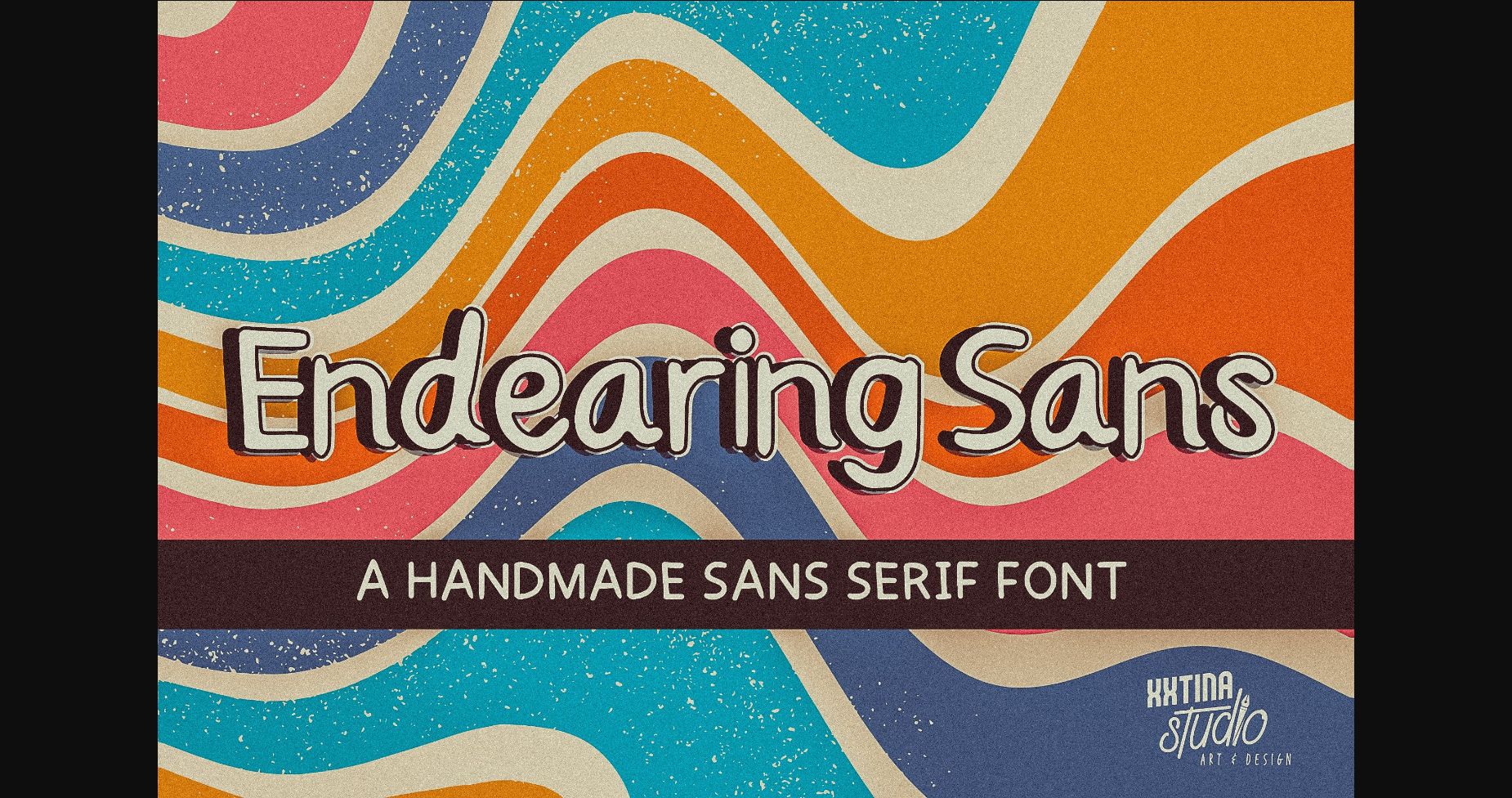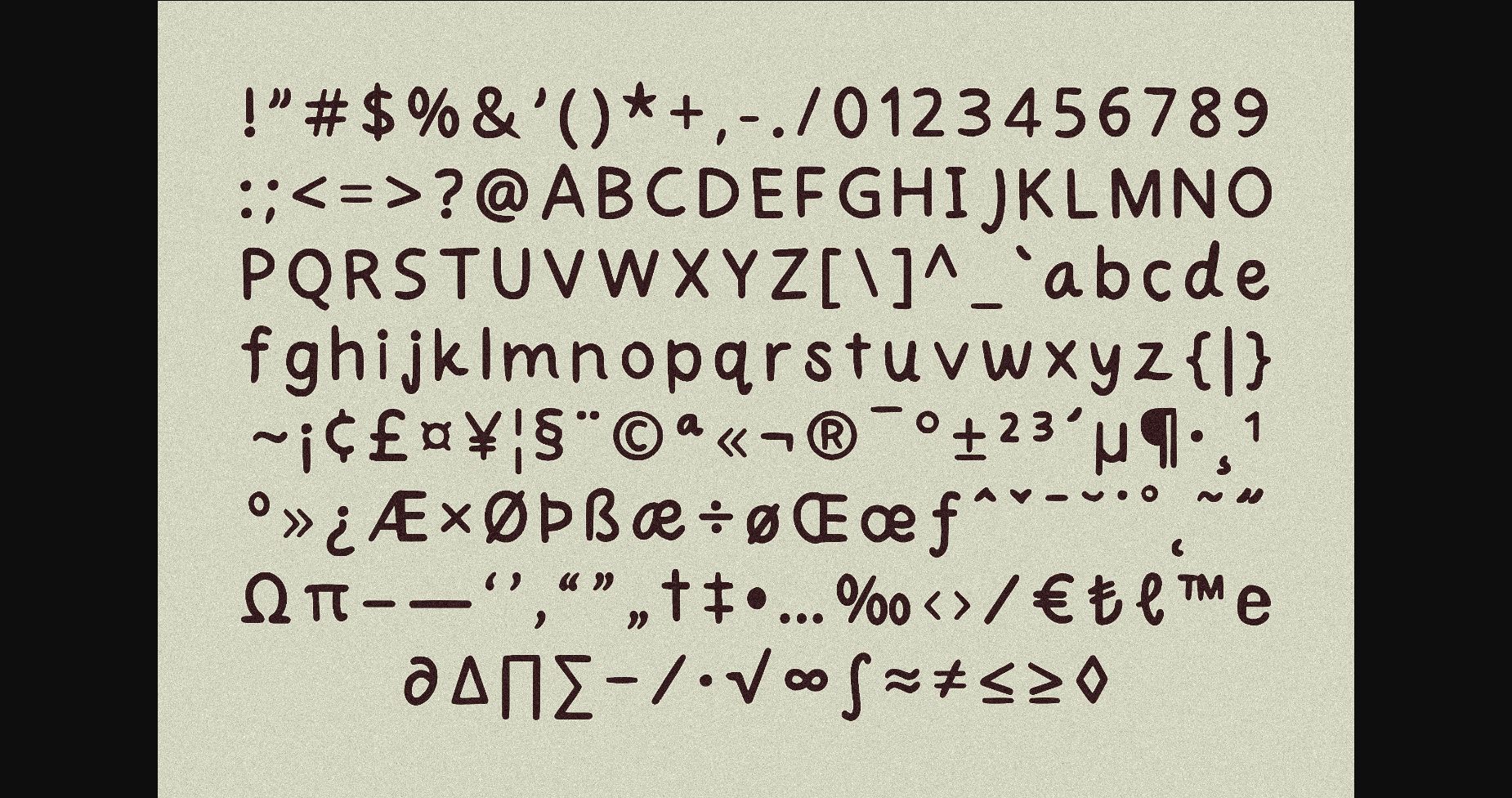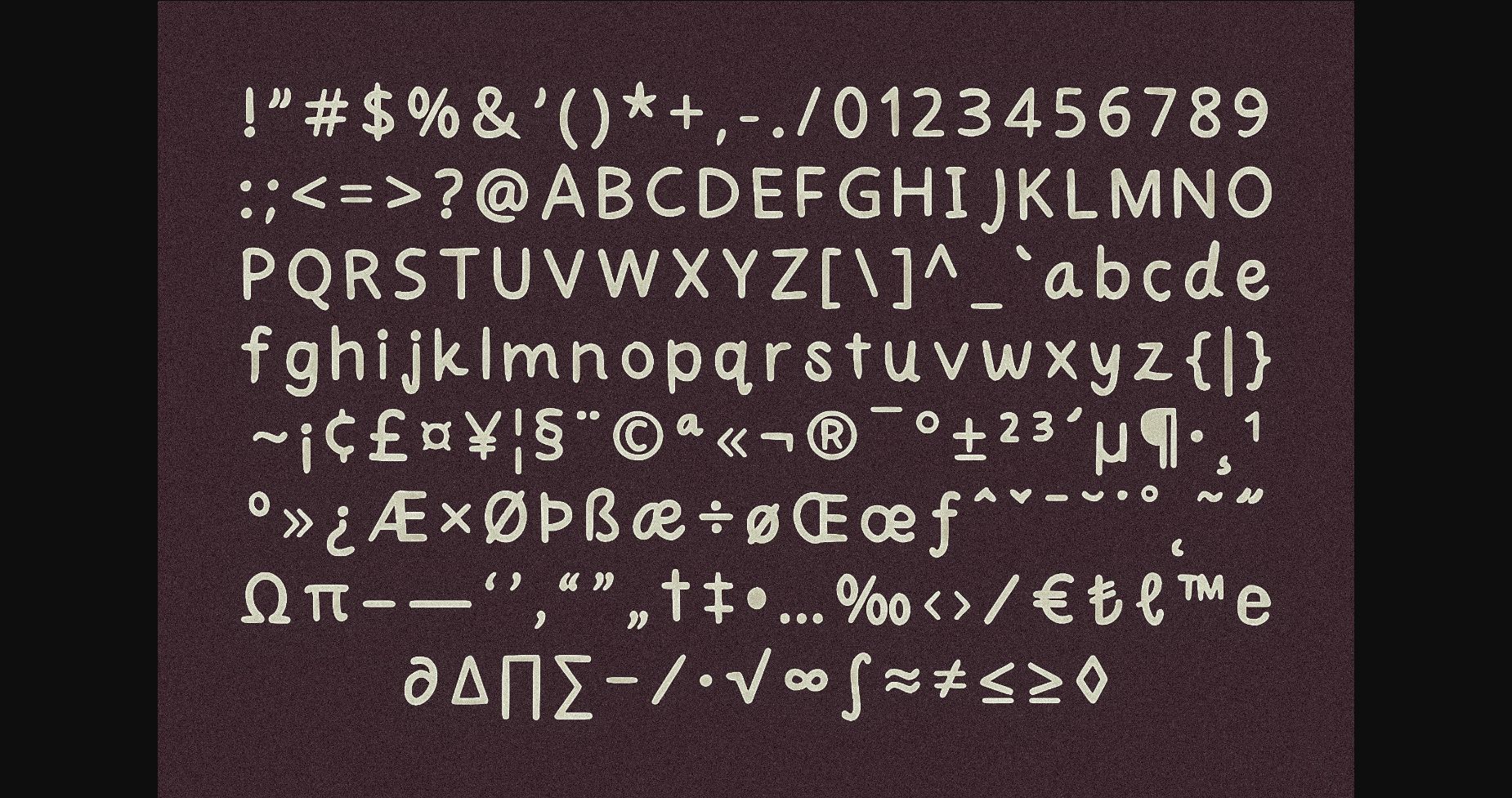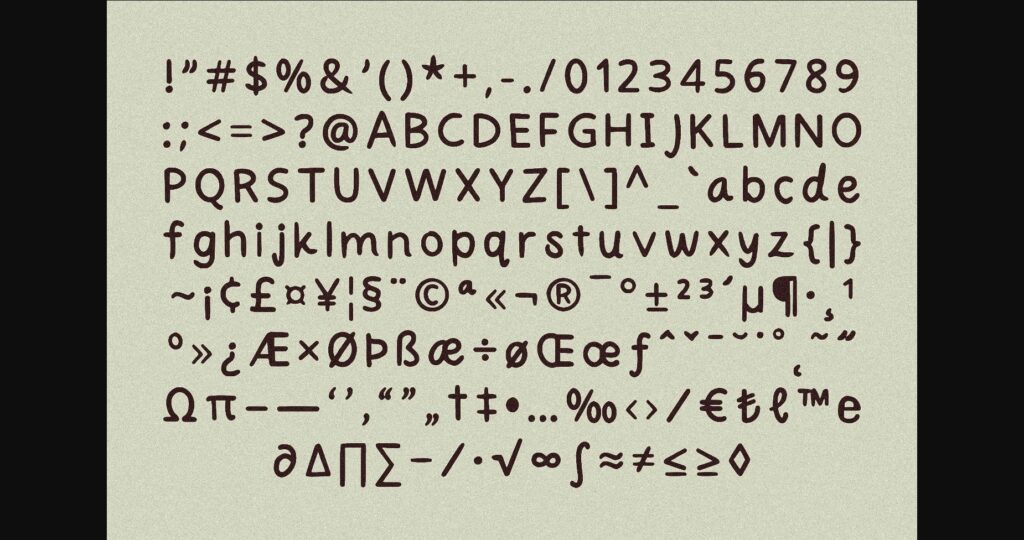
About Endearing Sans Font
Endearing Sans is a fun and joyful sans serif font. Fall in love with its incredibly versatile style and use it to create gorgeous wedding invitations, beautiful stationary art, eye-catching social media posts, and much more!